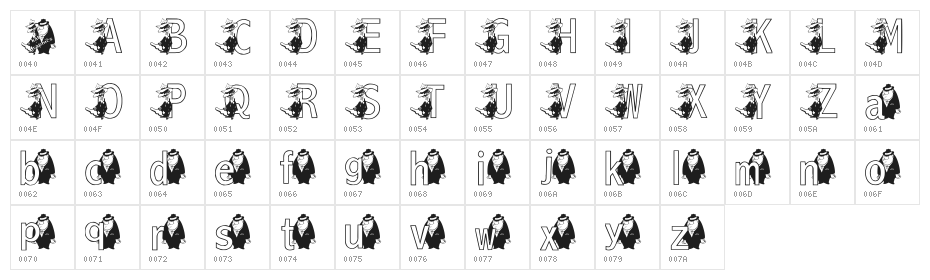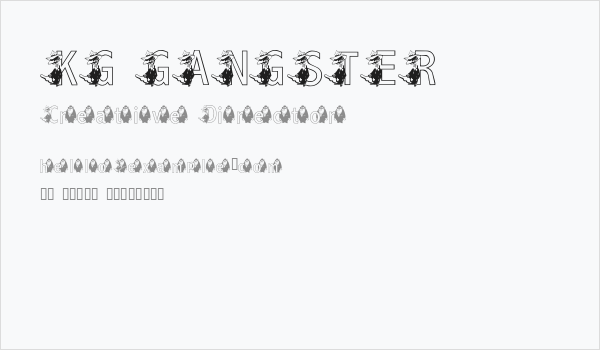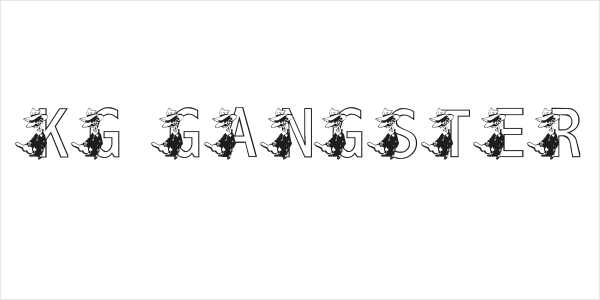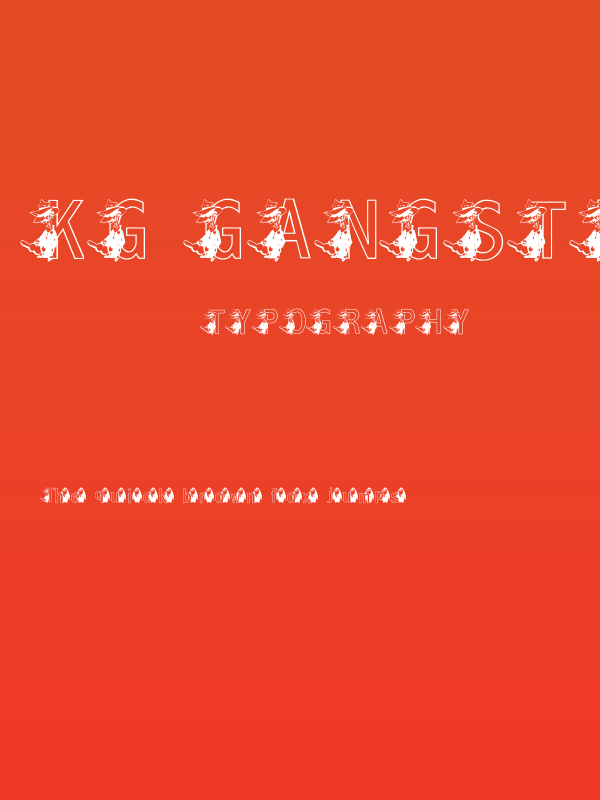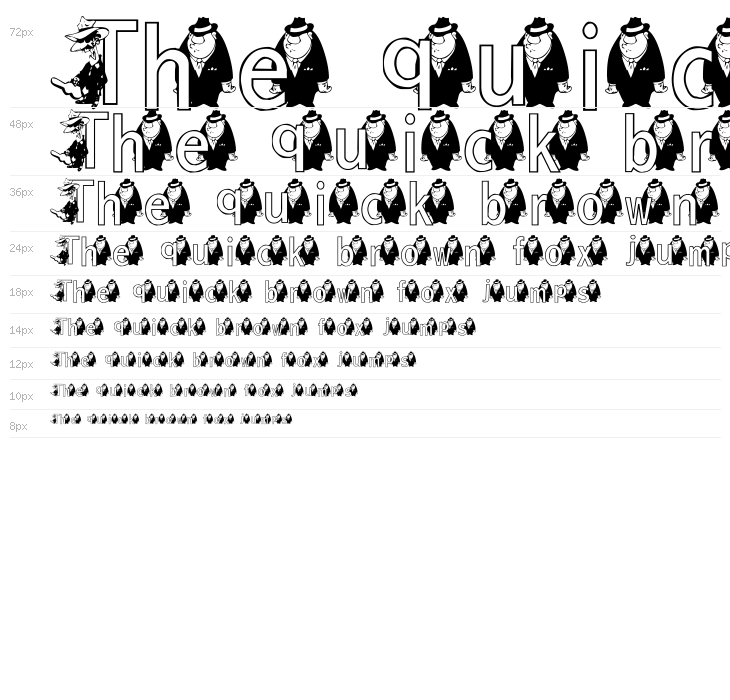
KG GANGSTER Font
KG GANGSTER Description
This font features a unique and playful design where each character is accompanied by a stylized gangster figure. The uppercase letters are bold and outlined, creating a strong visual impact, while the lowercase letters maintain a similar style with a more compact form. The font includes a full set of uppercase and lowercase letters, but the numbers and special characters are represented by empty rectangles, suggesting a decorative or thematic use rather than functional text. The overall design is whimsical and thematic, making it suitable for projects that require a fun and distinctive look.
| Use Case | Logos, Posters, Themed Events |
| Proposed Projects | Ideal for themed party invitations, posters, or any project requiring a playful and unique aesthetic. |